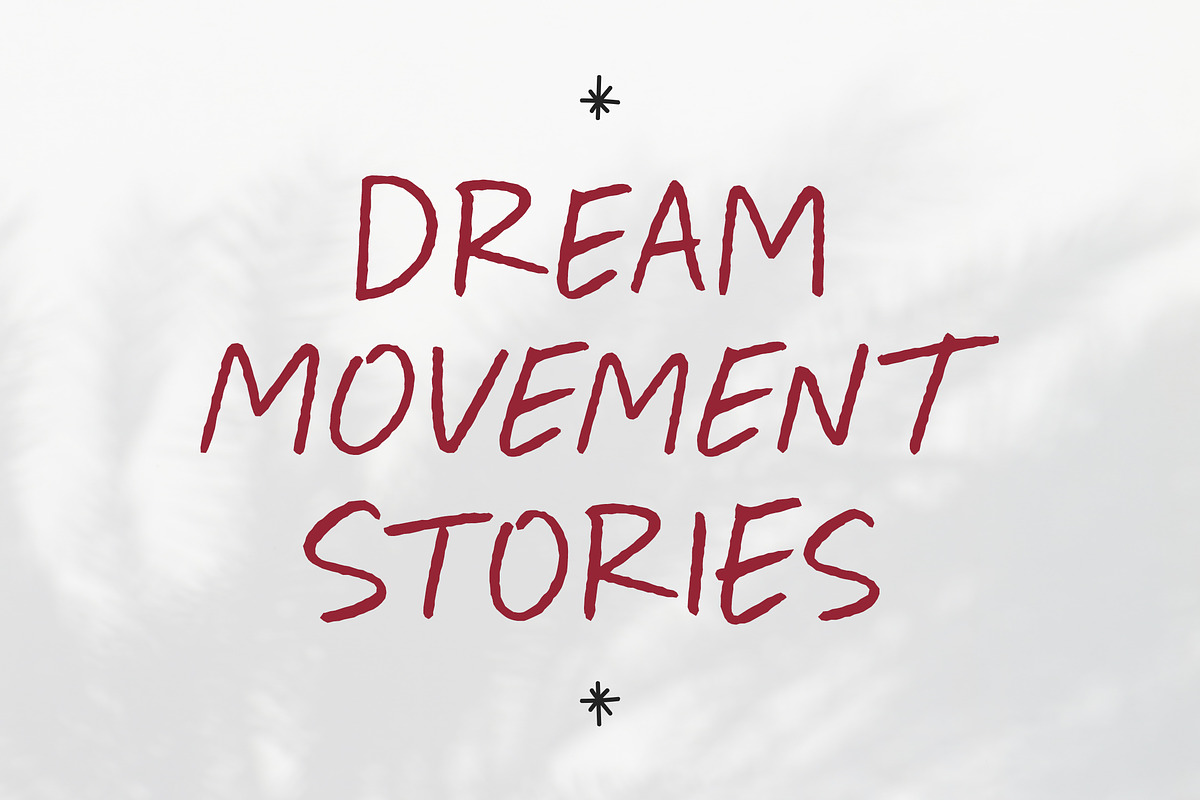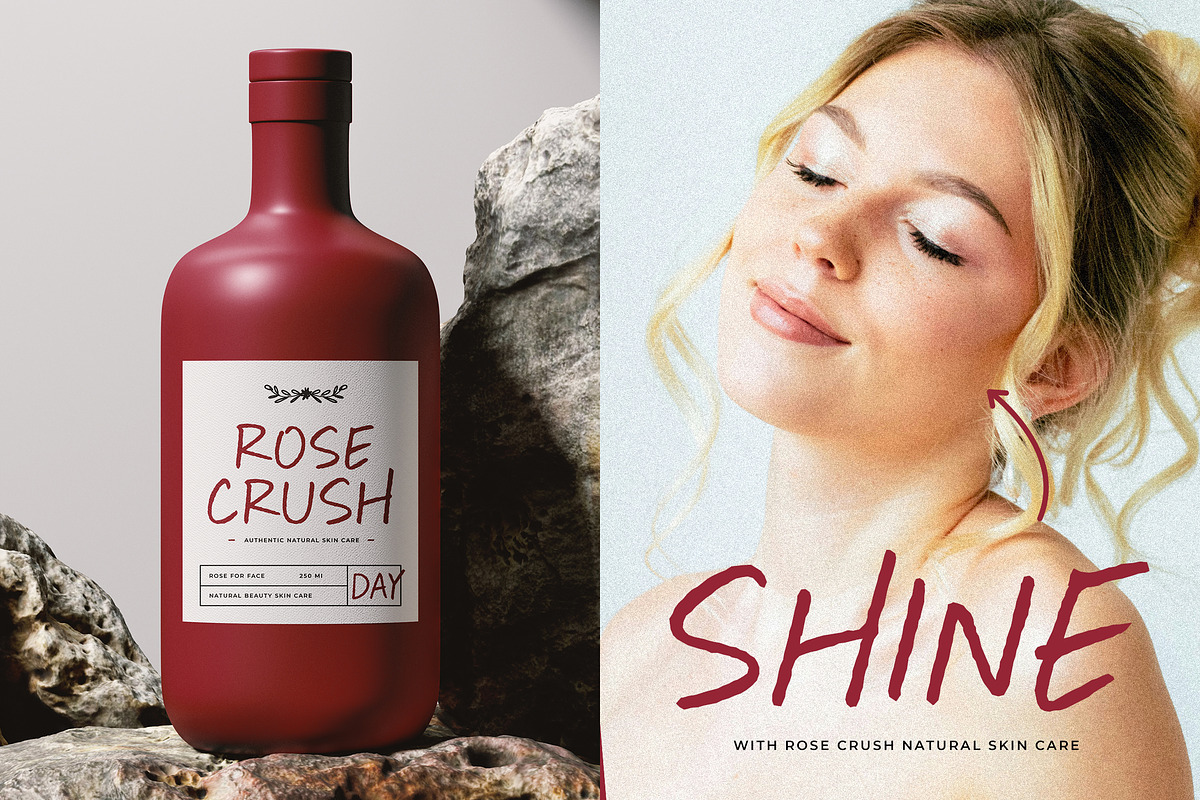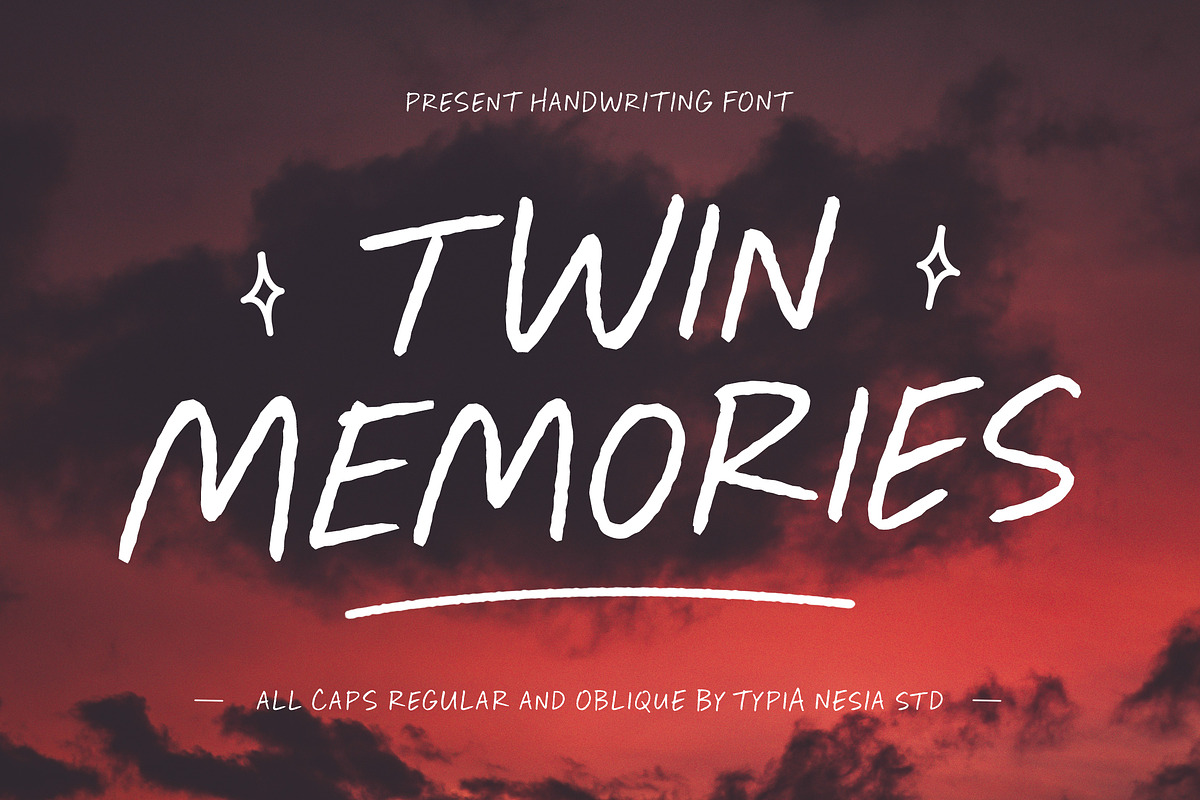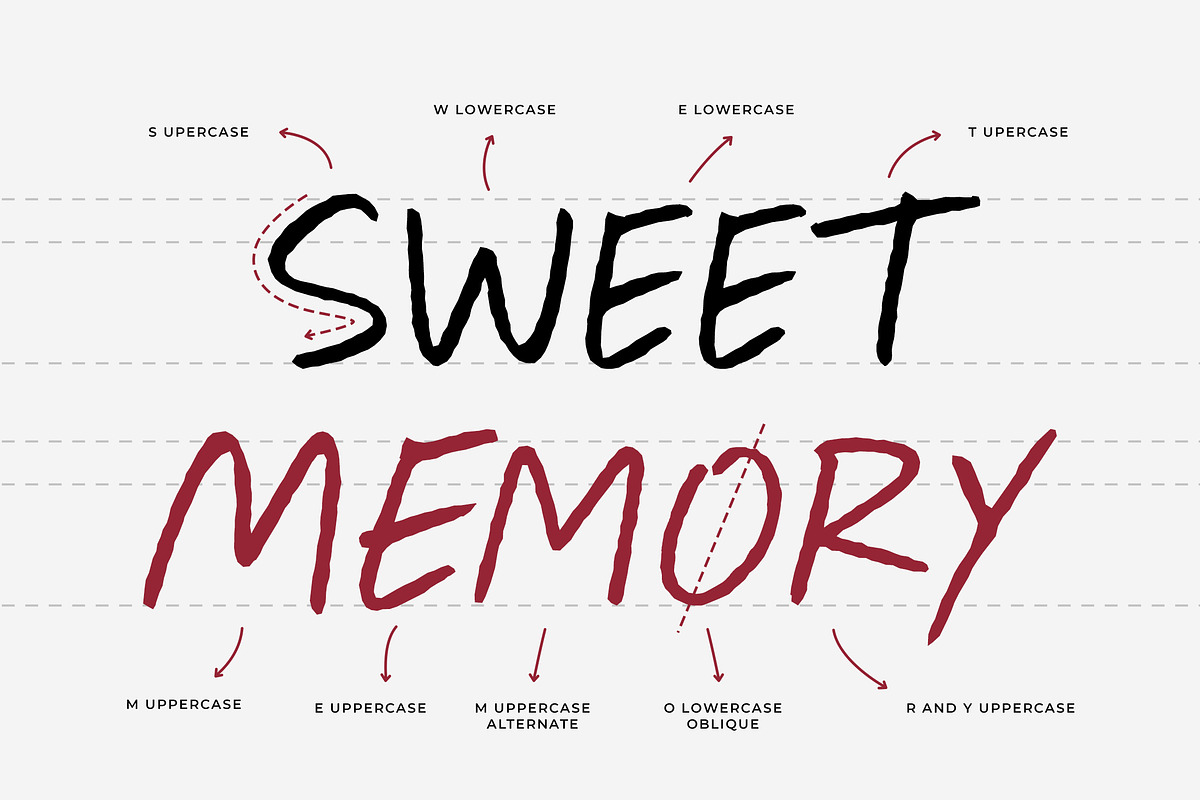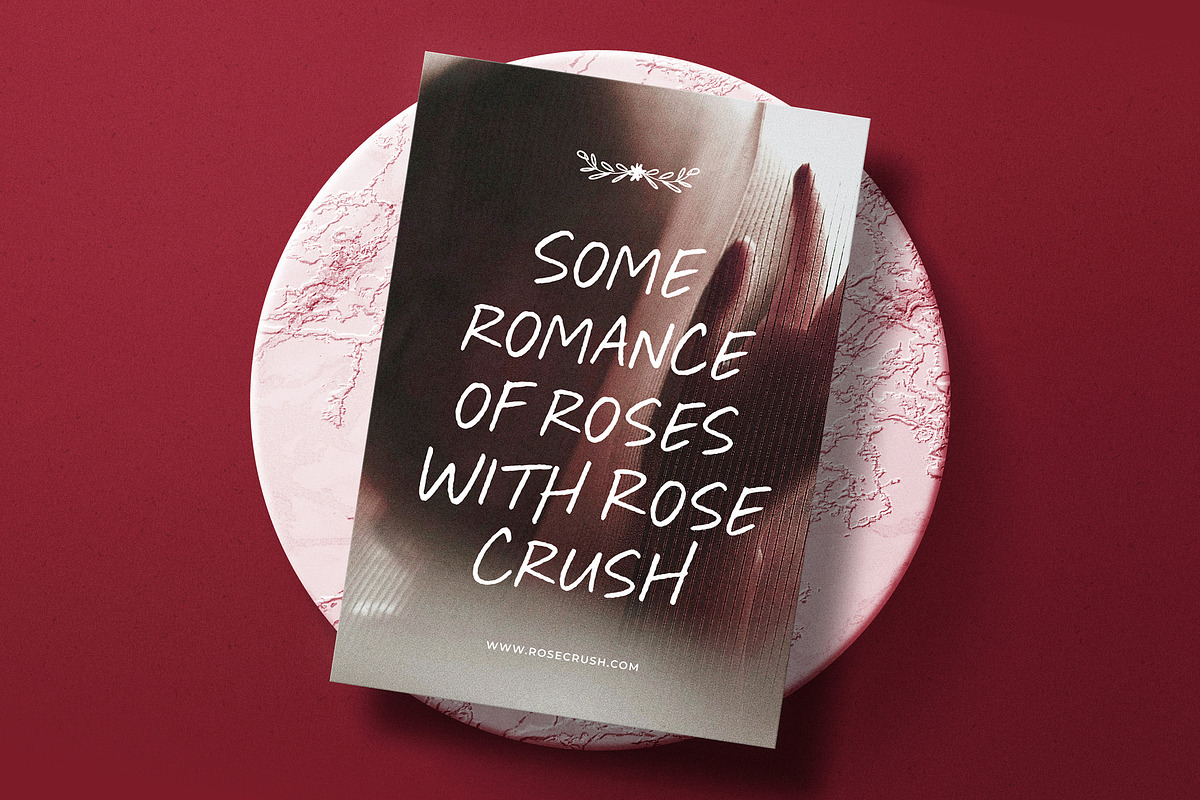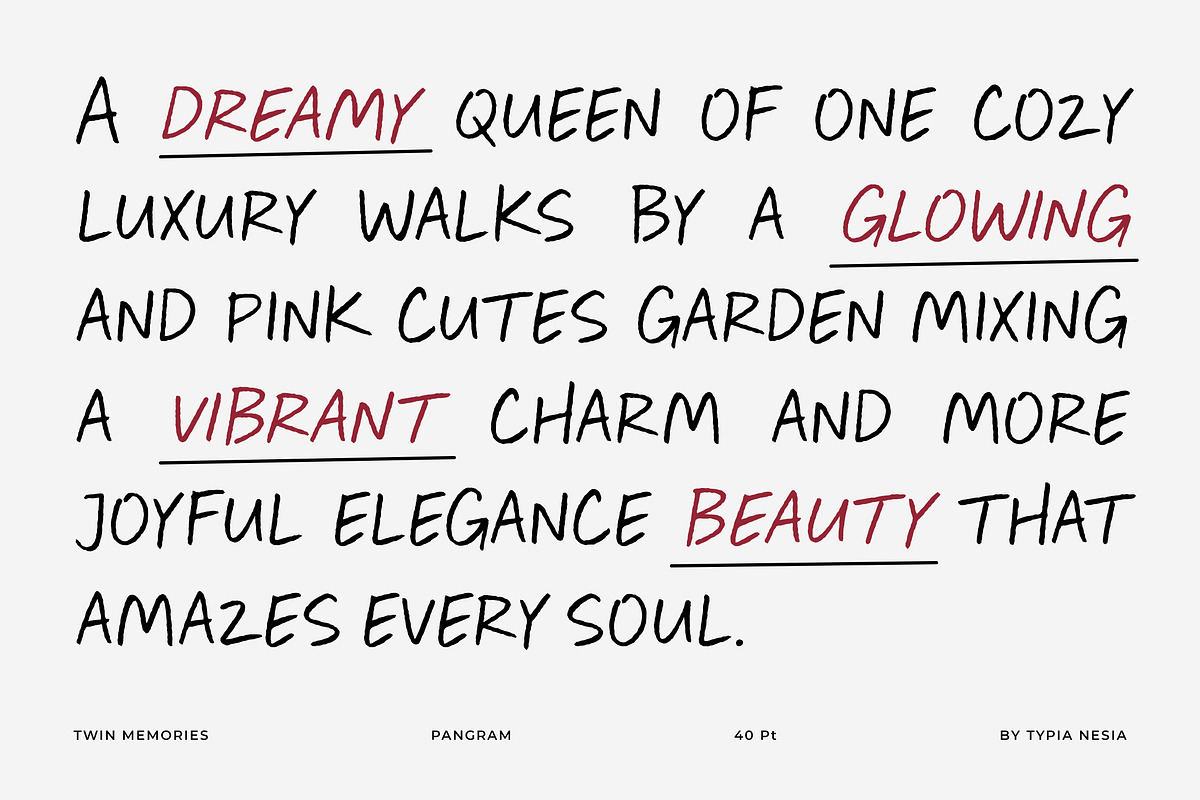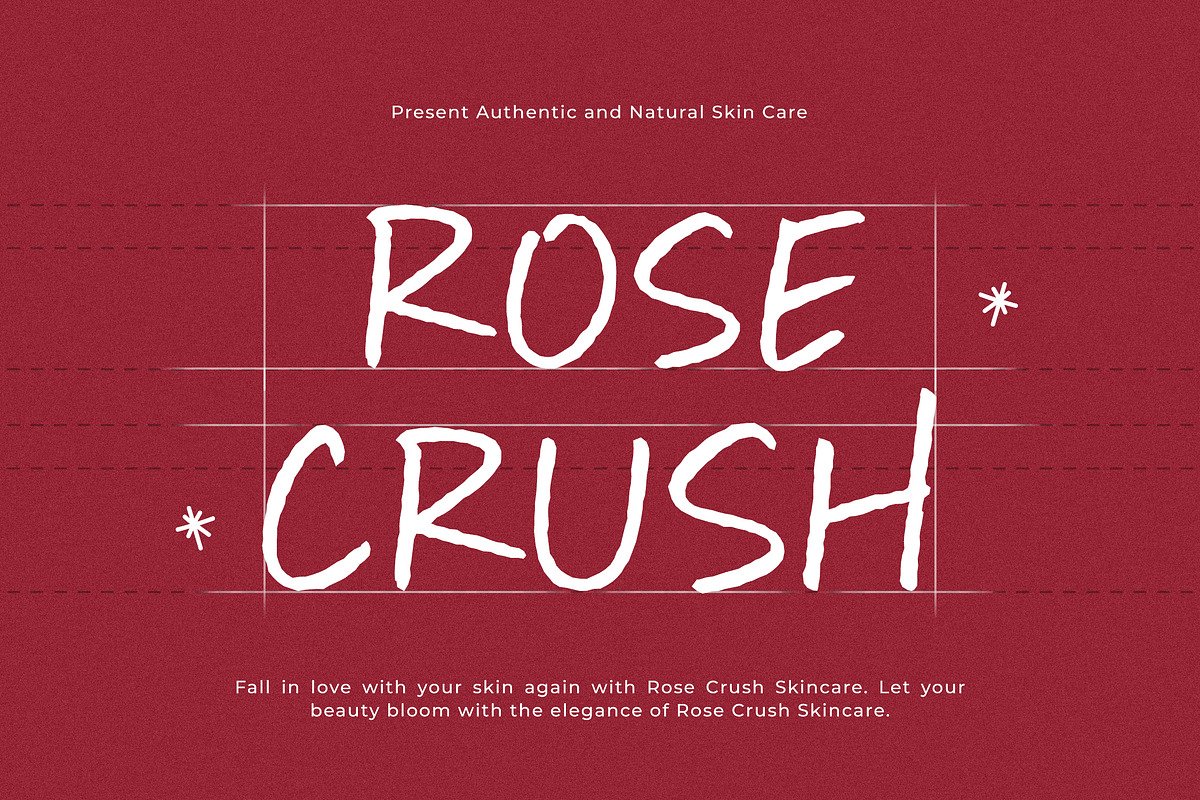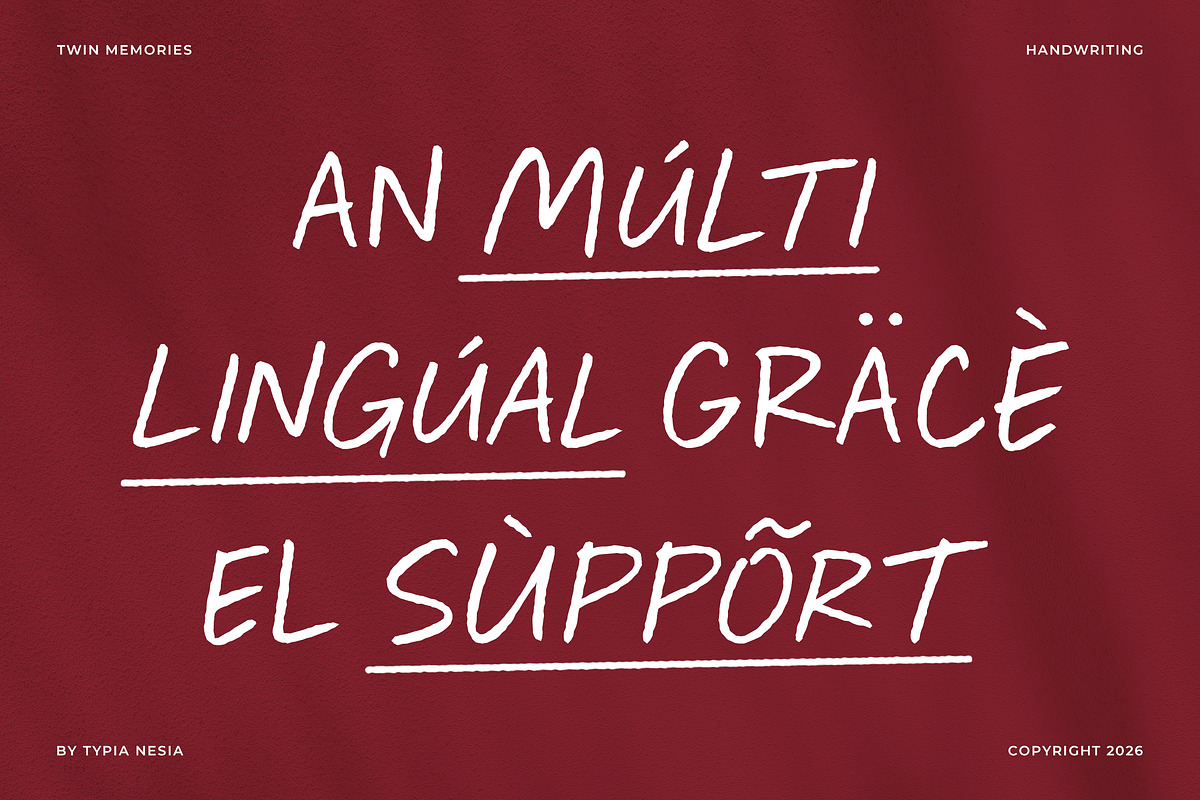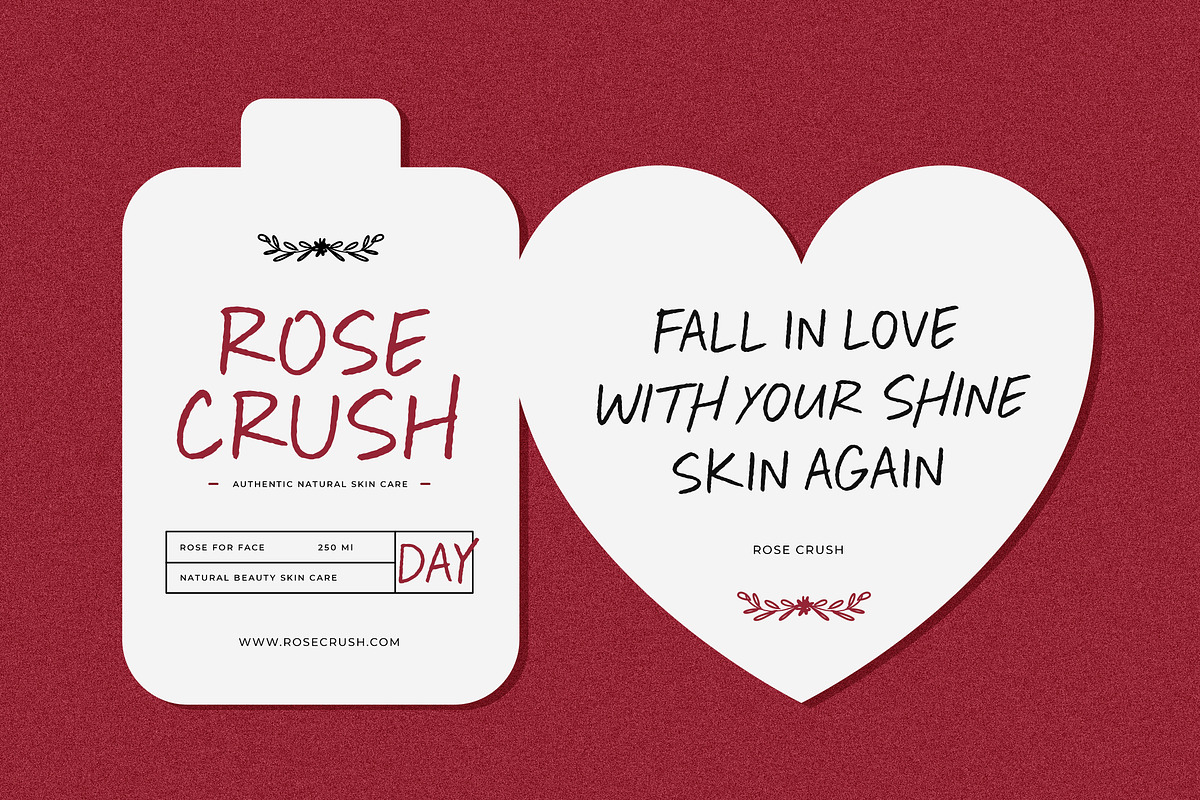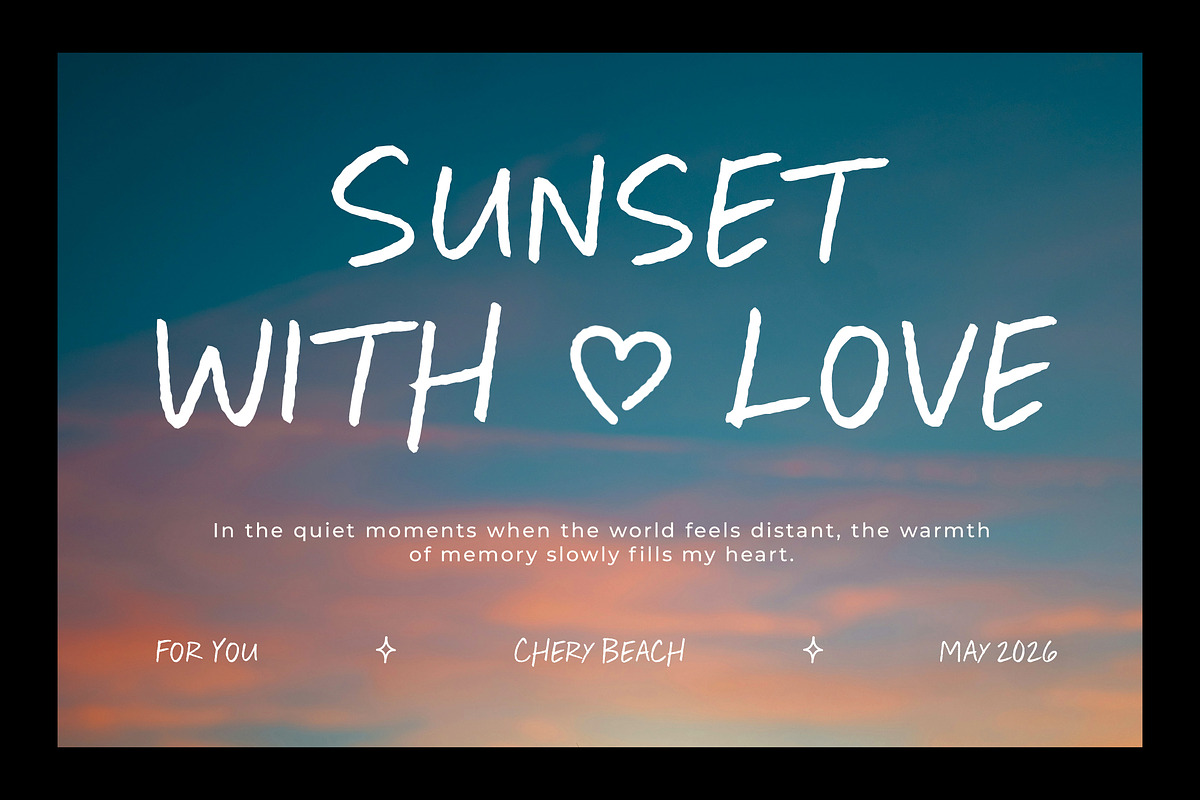
Twin Memories - Casual Handwritten
Twin Memories - Casual Handwritten Marker / Pen Font - Logo Display Font
Twin Memories is a casual handwritten marker font that captures the warmth of everyday notes and the charm of spontaneous doodles. Inspired by natural pen and marker strokes, this typeface delivers a relaxed and authentic feel with a slightly playful, comic-inspired personality. It is perfect for café and coffee branding, bakery themes, sweet product packaging, logos, notes, labels, and creative projects that need a personal and genuine touch. Twin Memories adds warmth, charm, and character to every word.
Add a personal touch with Twin Memories.